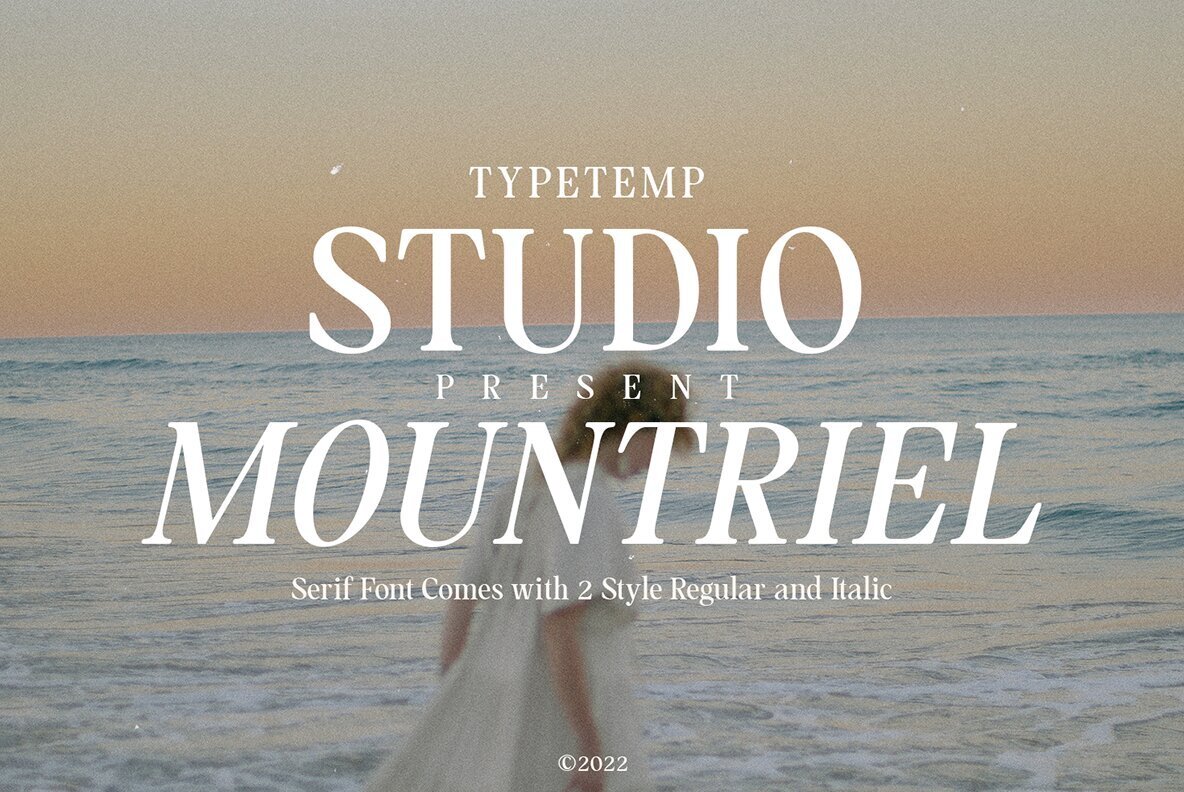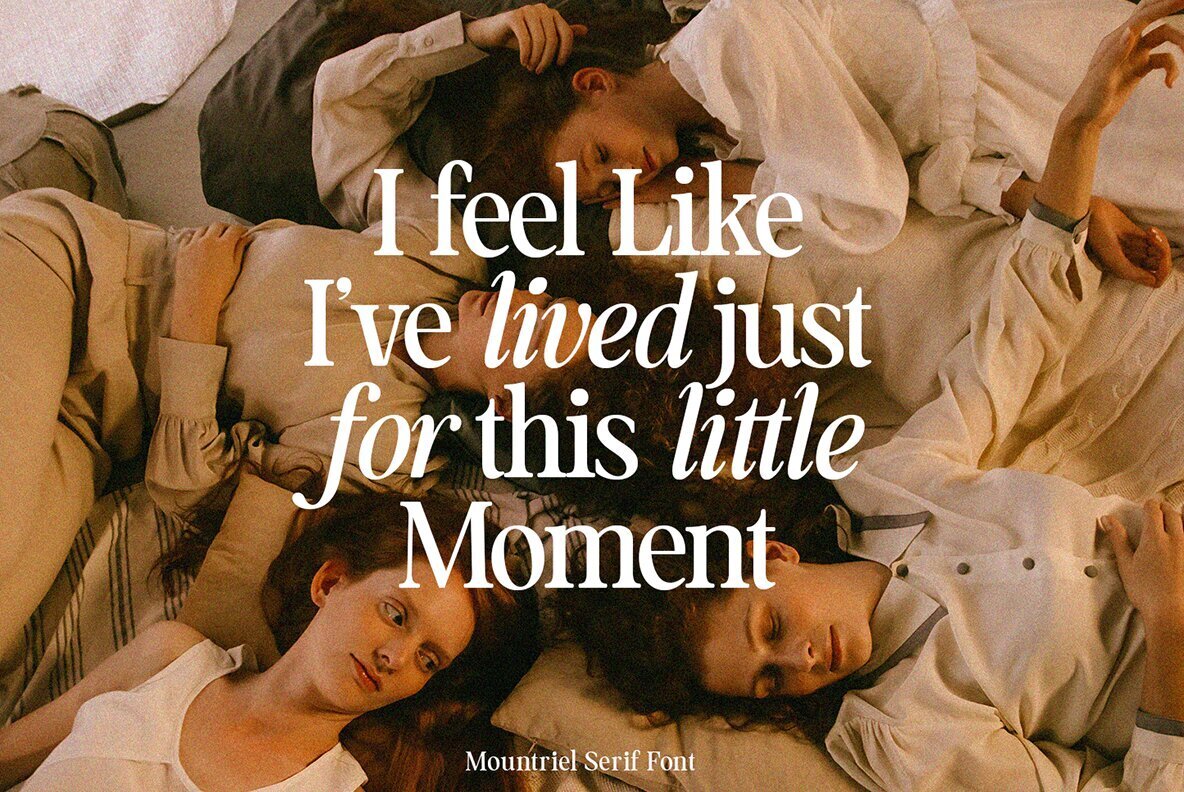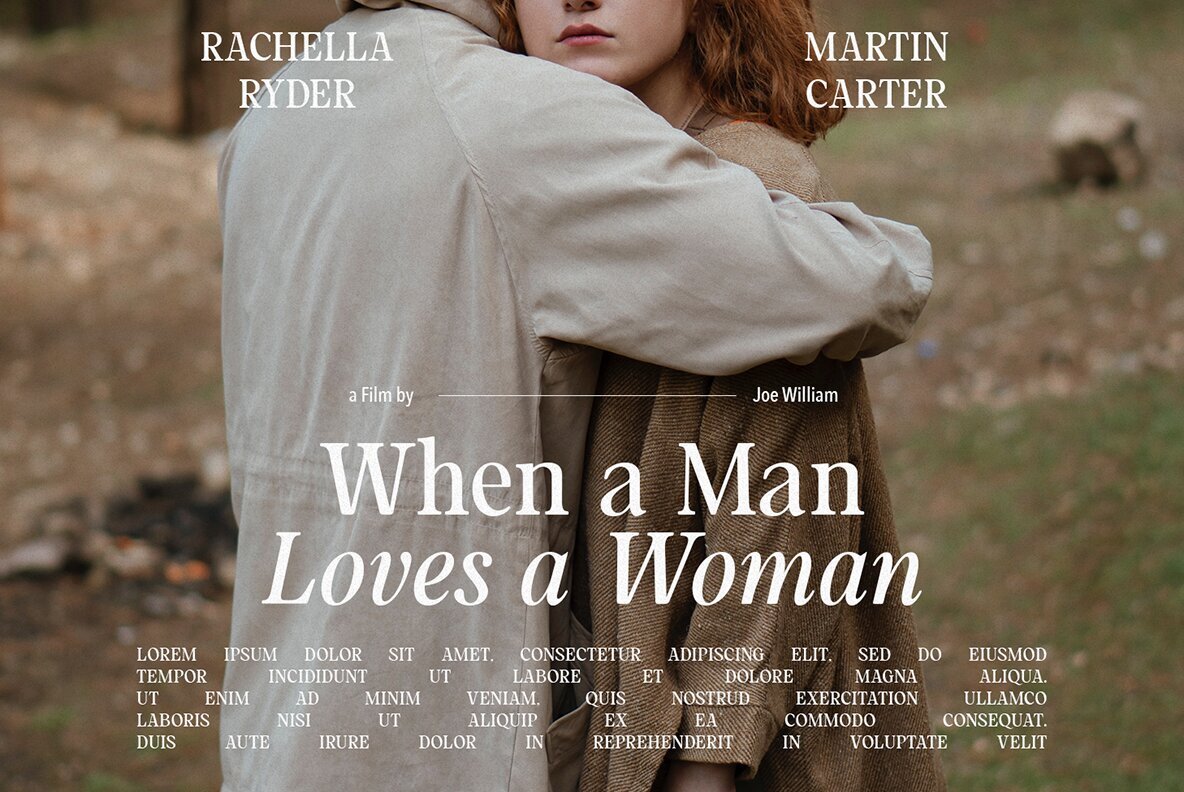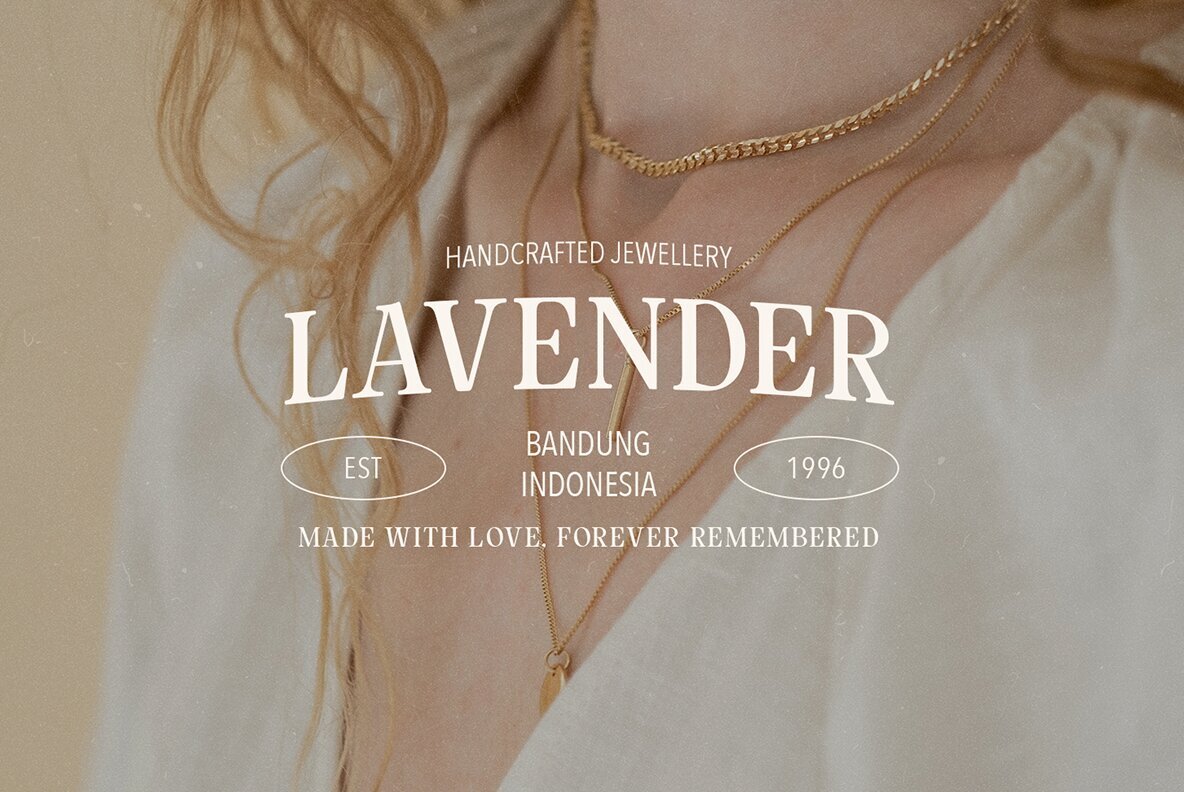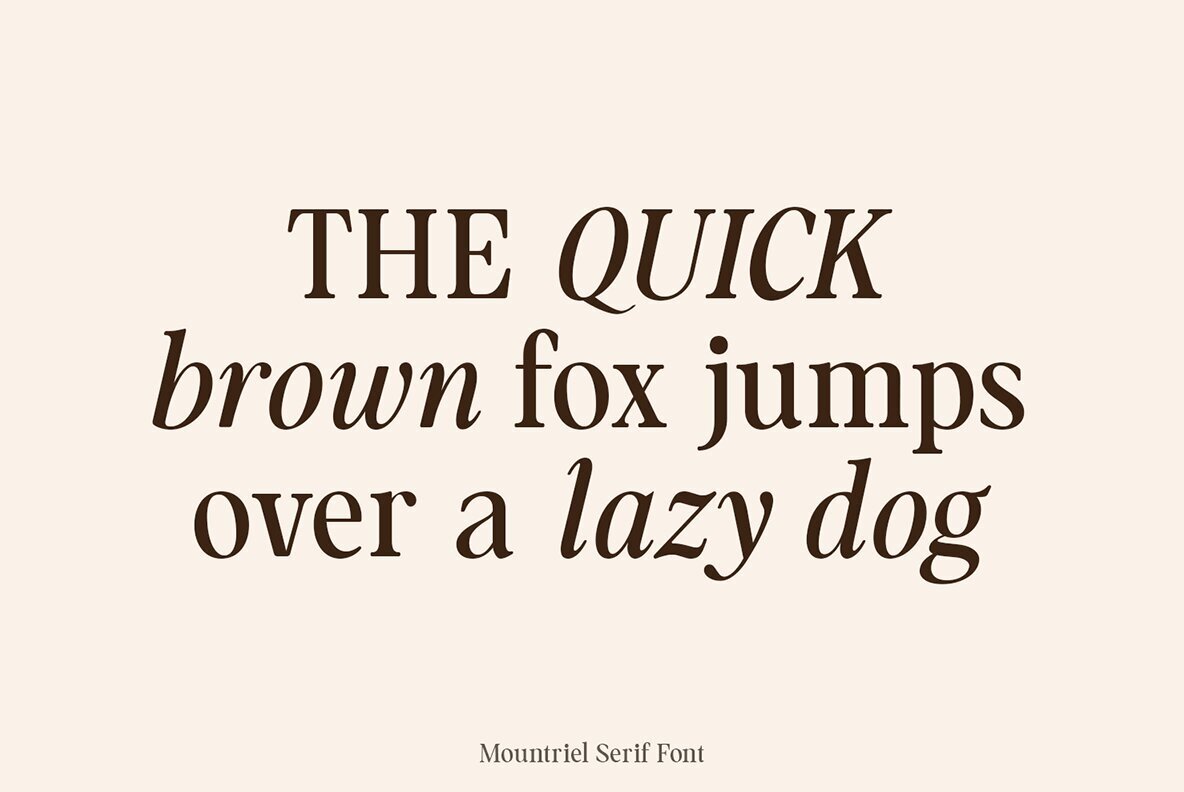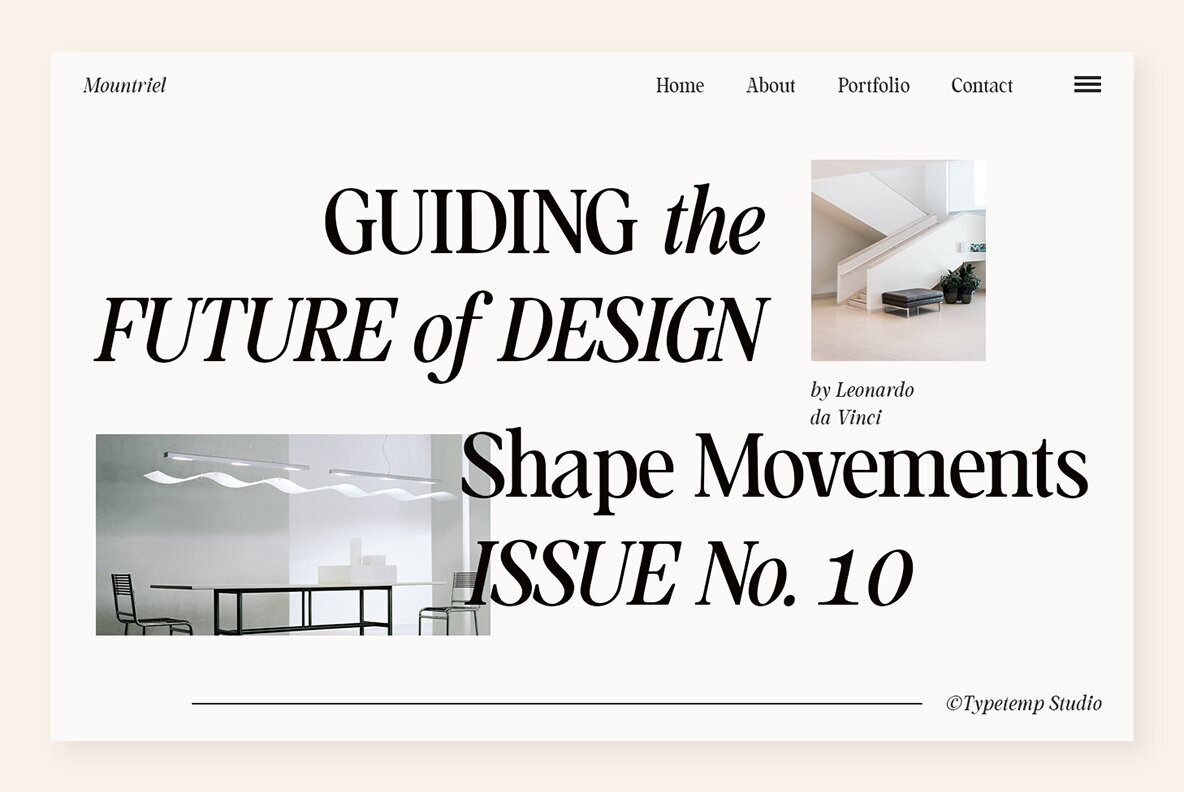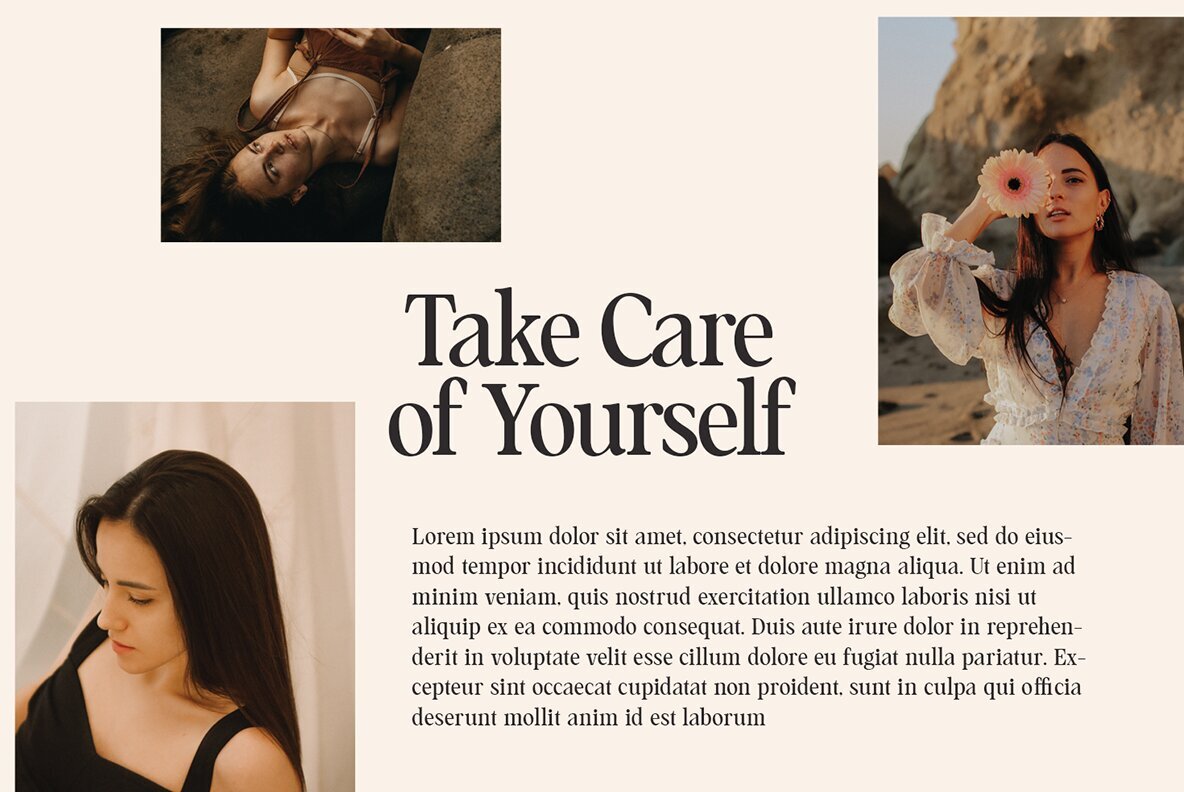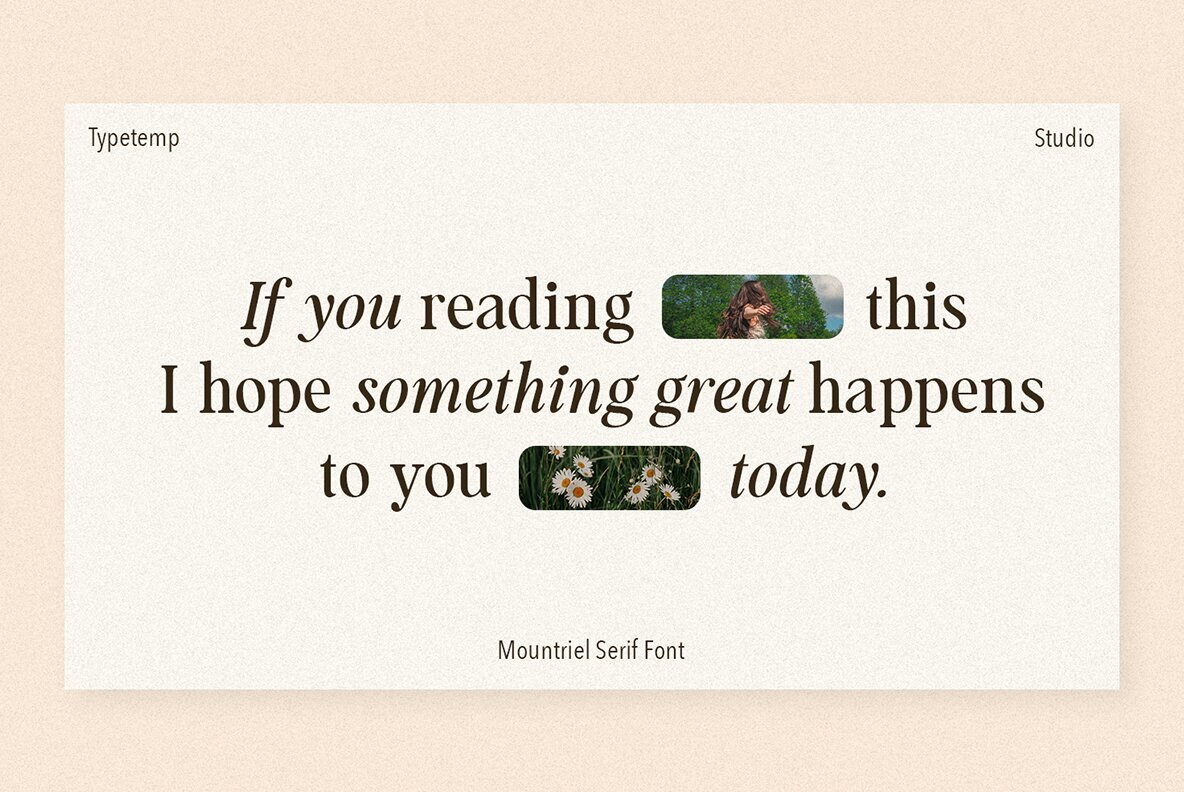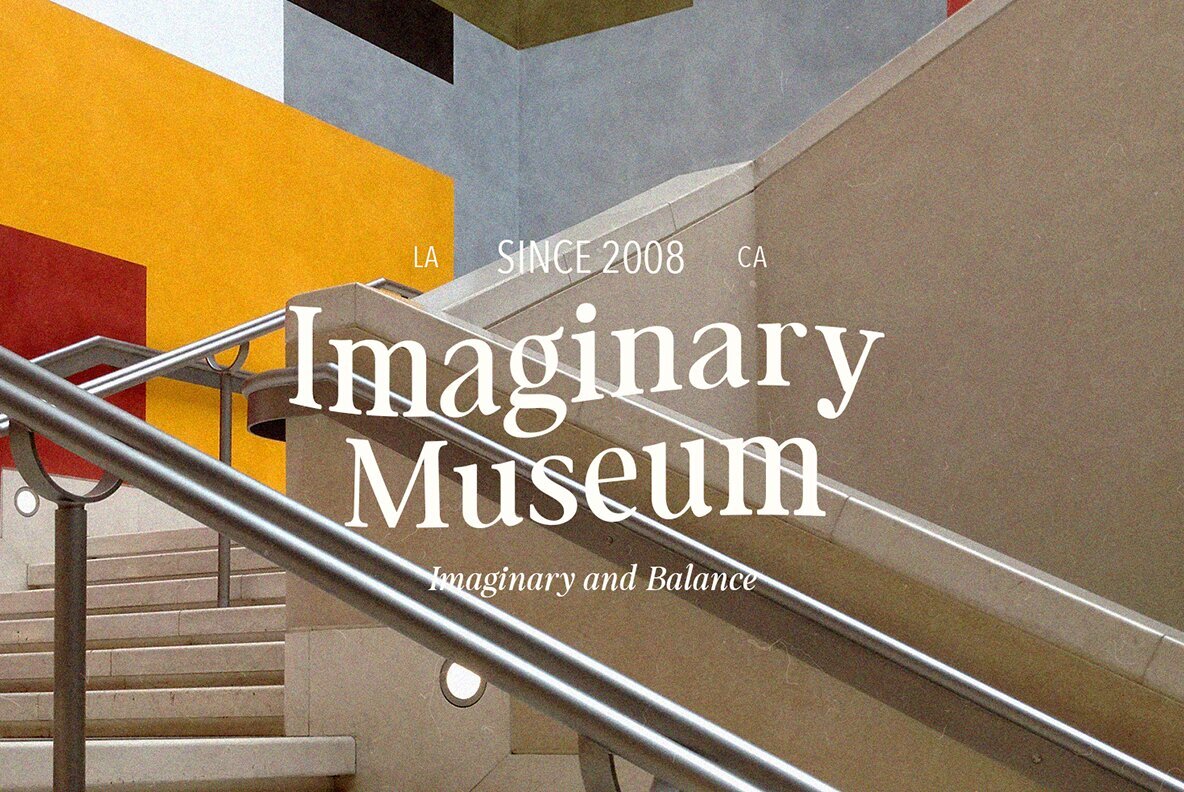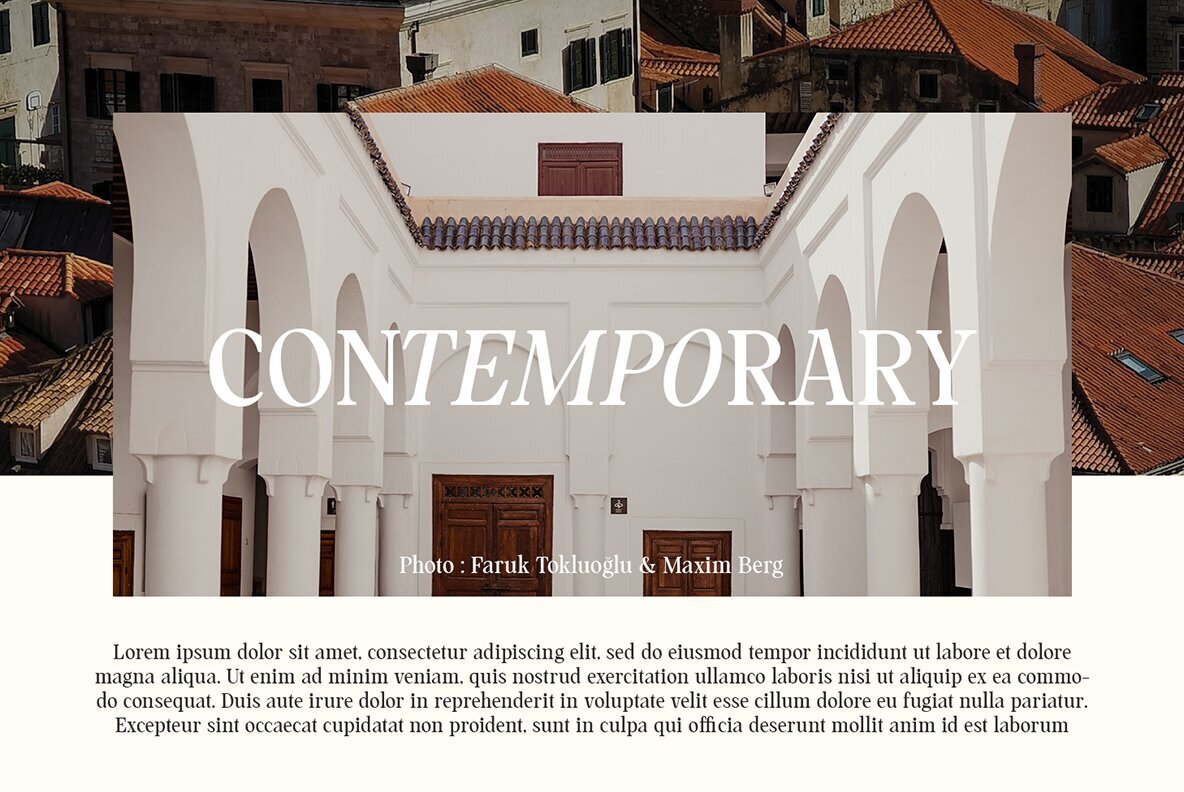
Mountriel: A Fusion of Classic and Modern Serif
Mountriel by Typetemp Studio offers a delightful blend of classic and modern serif aesthetics, echoing a nostalgic 80s and 90s vibe. This stylish font is an excellent choice for creating captivating logos, memorable quotes, and engaging blog posts. Perfectly suited for branding projects, magazine imagery, and wedding invitations, Mountriel provides both elegance and versatility.
• Includes alternative characters and ligatures